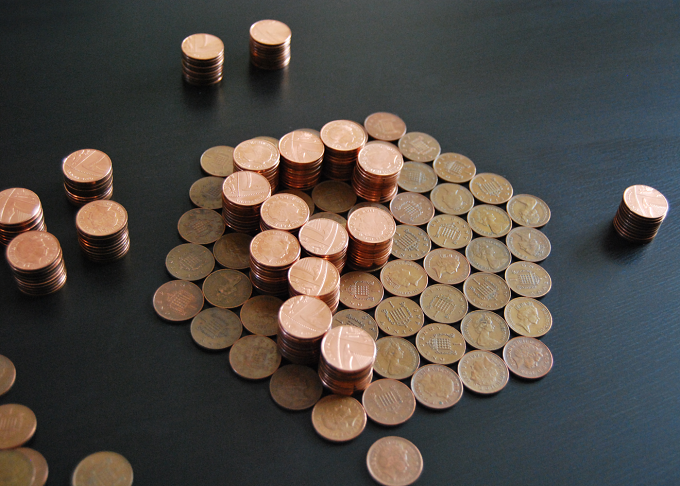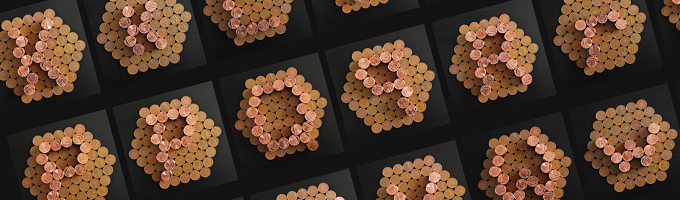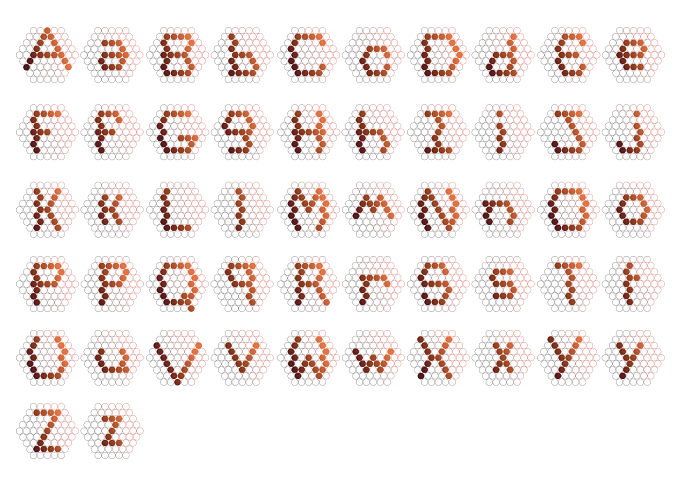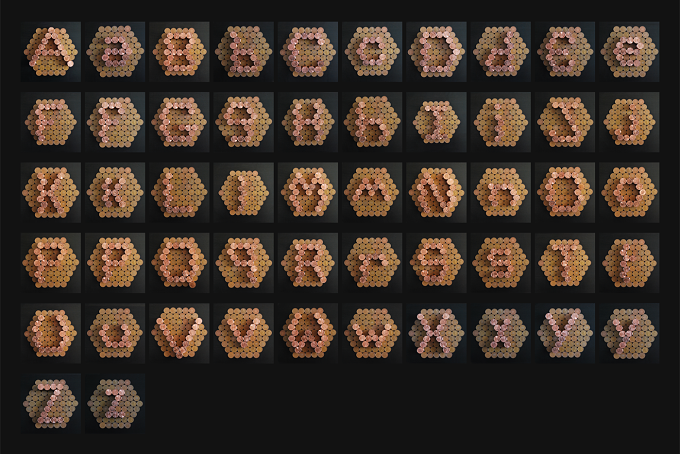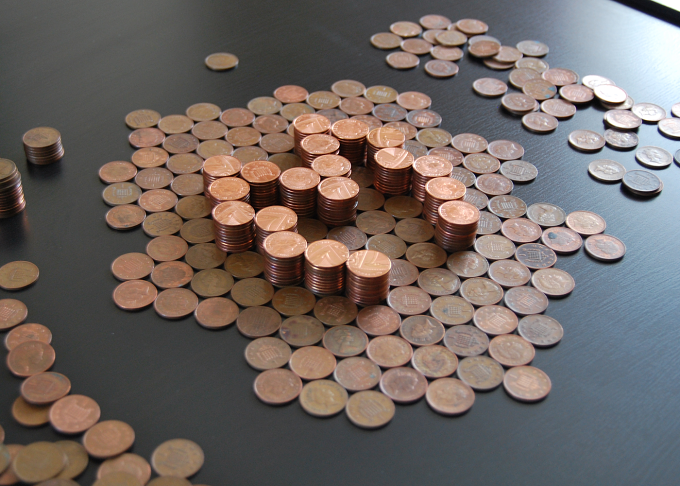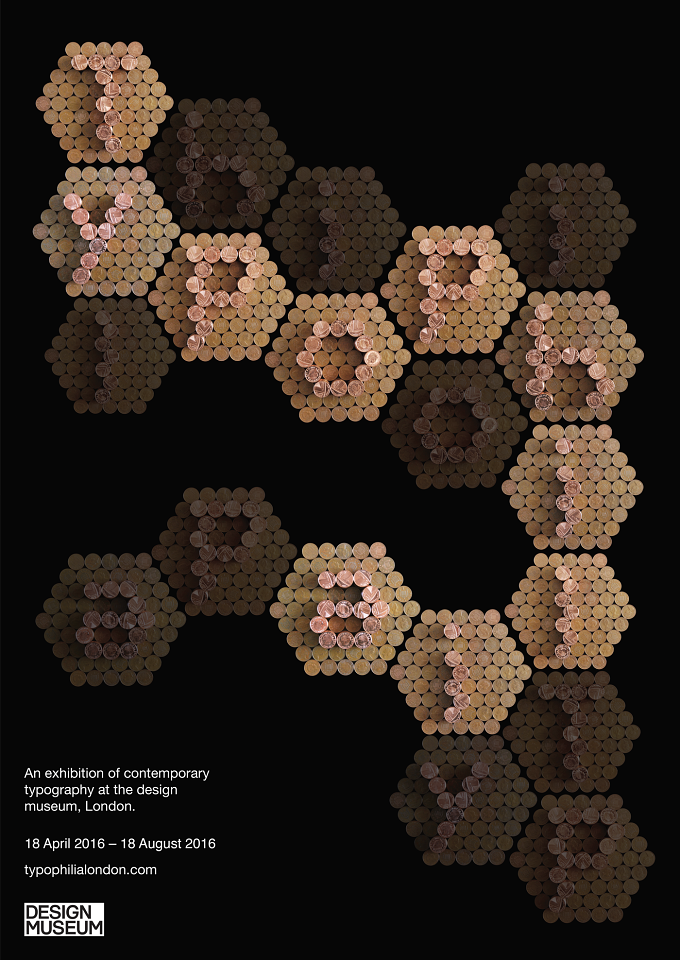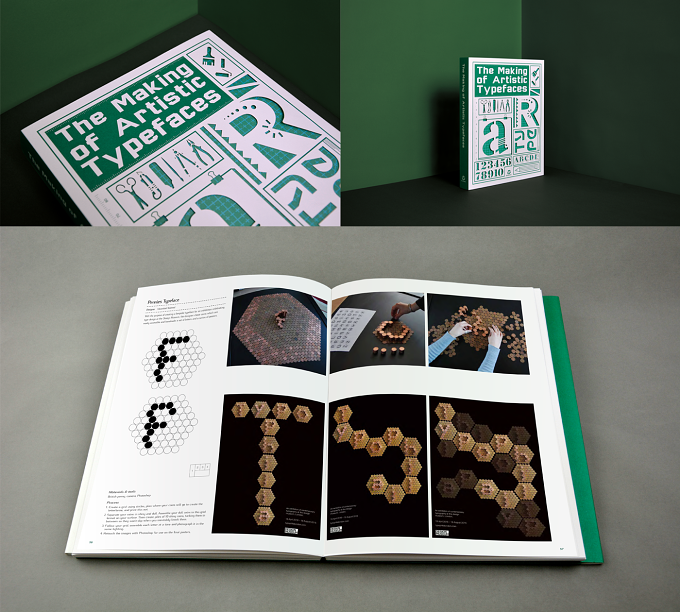
This was a personal project exploring the British penny to create a handmade typeface.
THE PROCESS
To maintain consistency of the ascenders, descenders and counters of the letters, a grid was created. This grid was then followed to create the typeface.
Dull pennies and shinny pennies were separated to create visual clarity and legibility.
This project was picked up by SendPoints publishing house and published in 'The Making of Artistic Typefaces'.